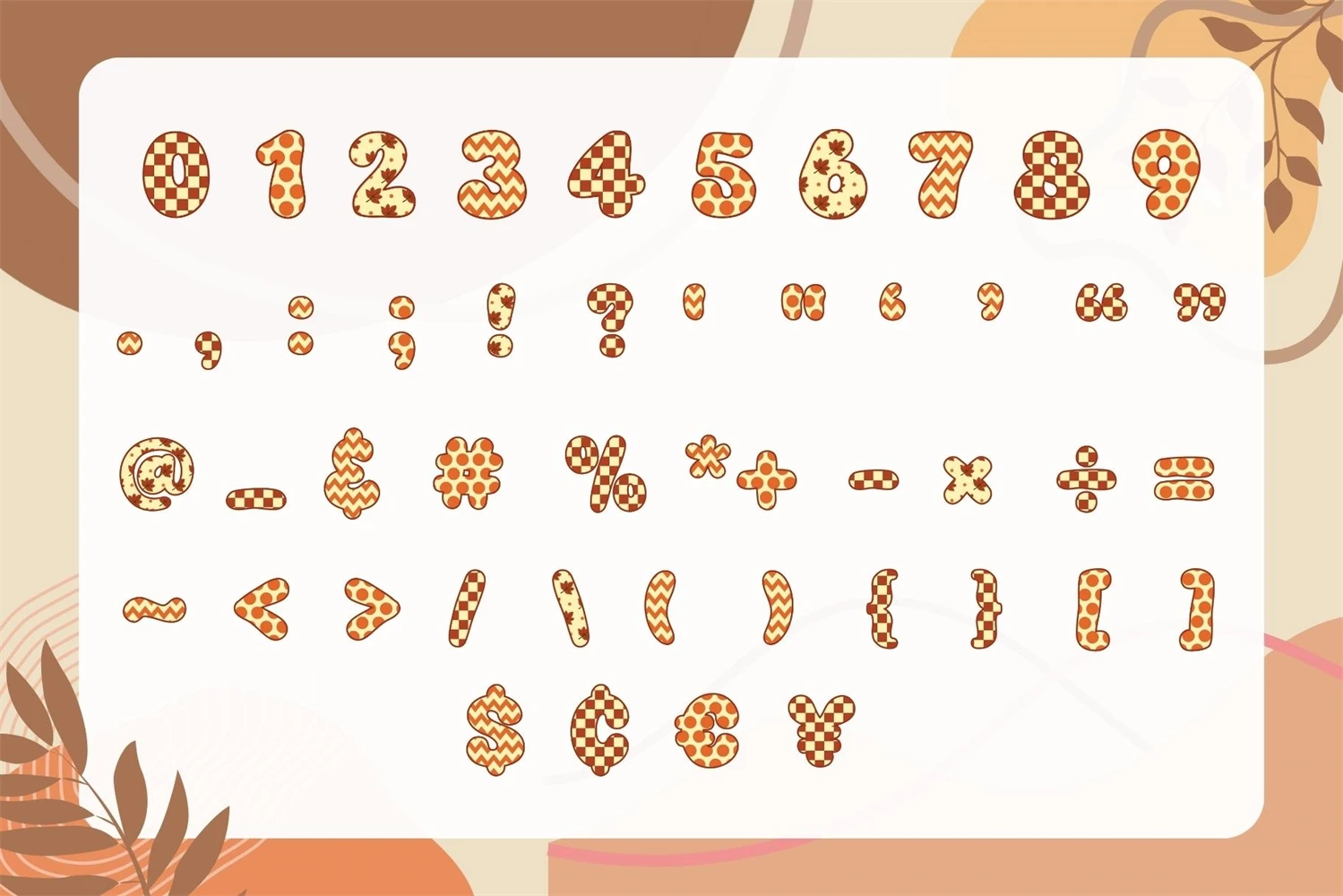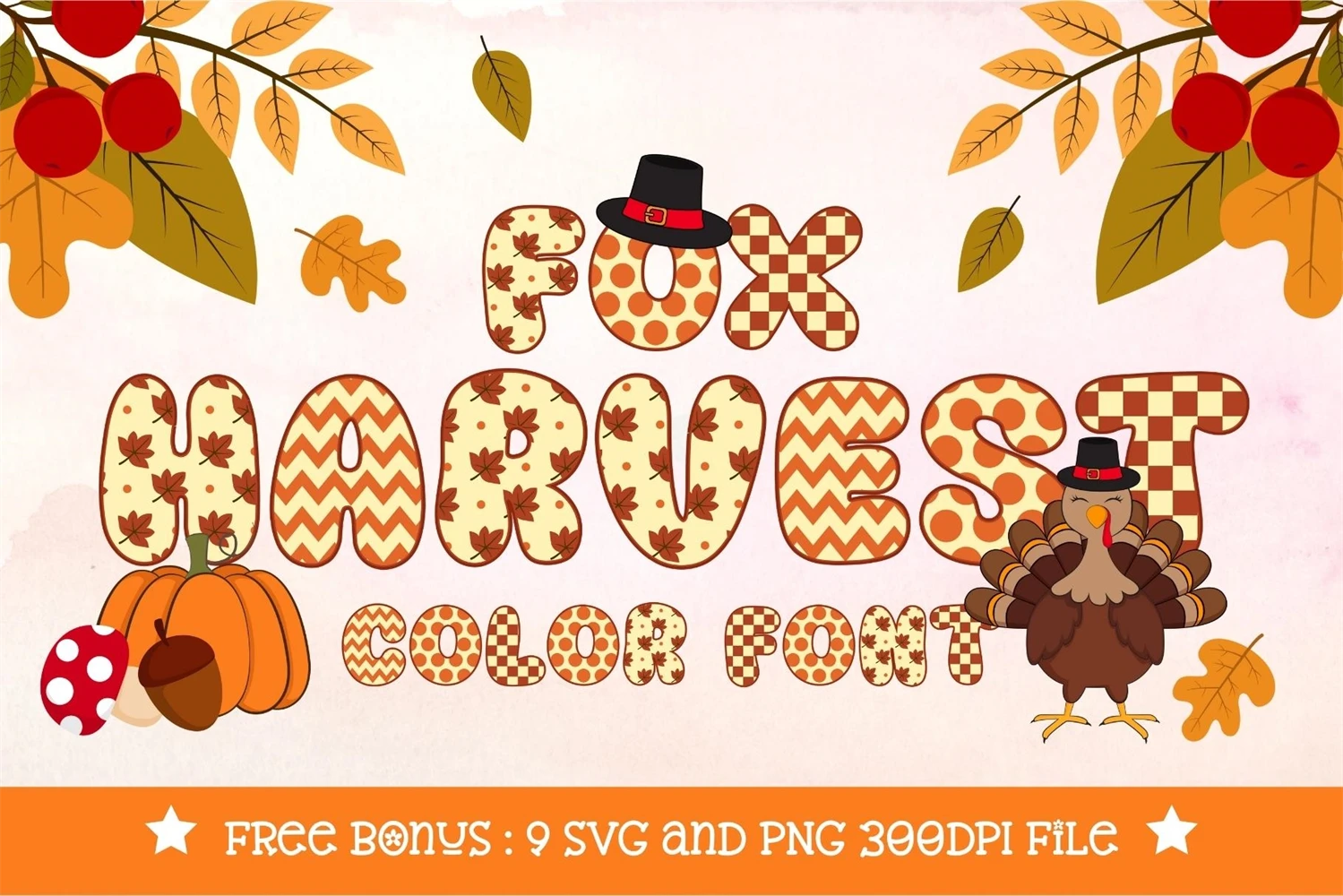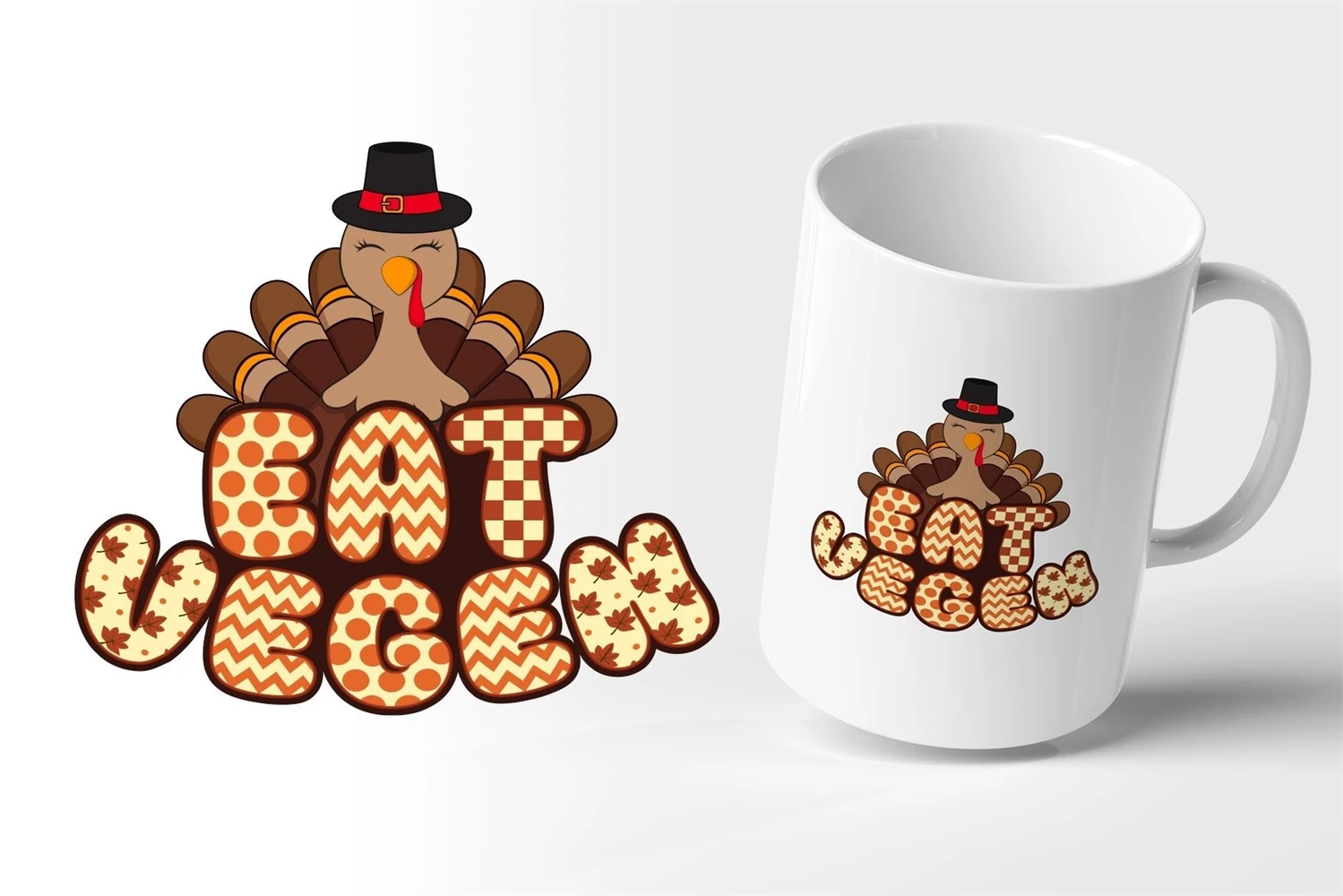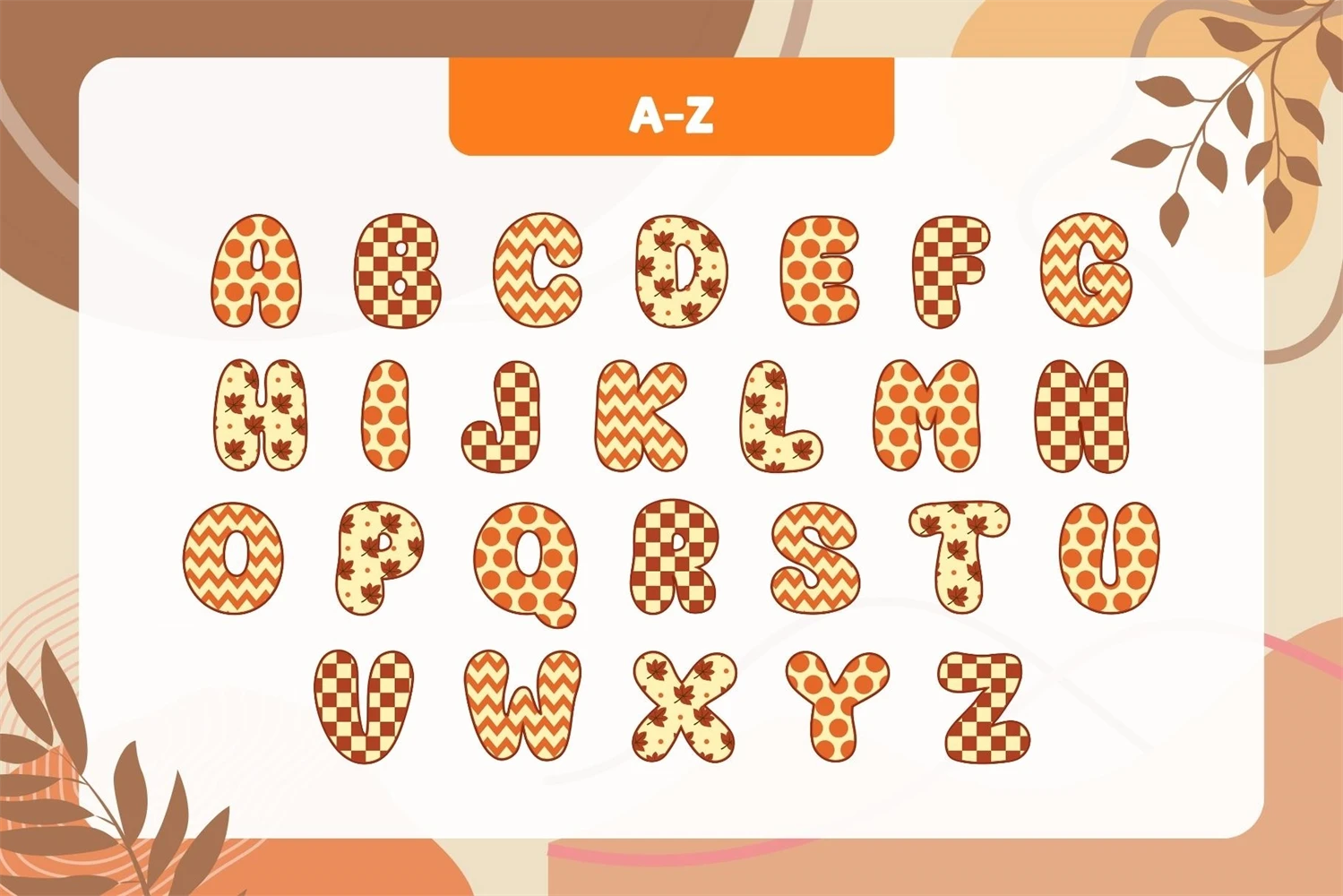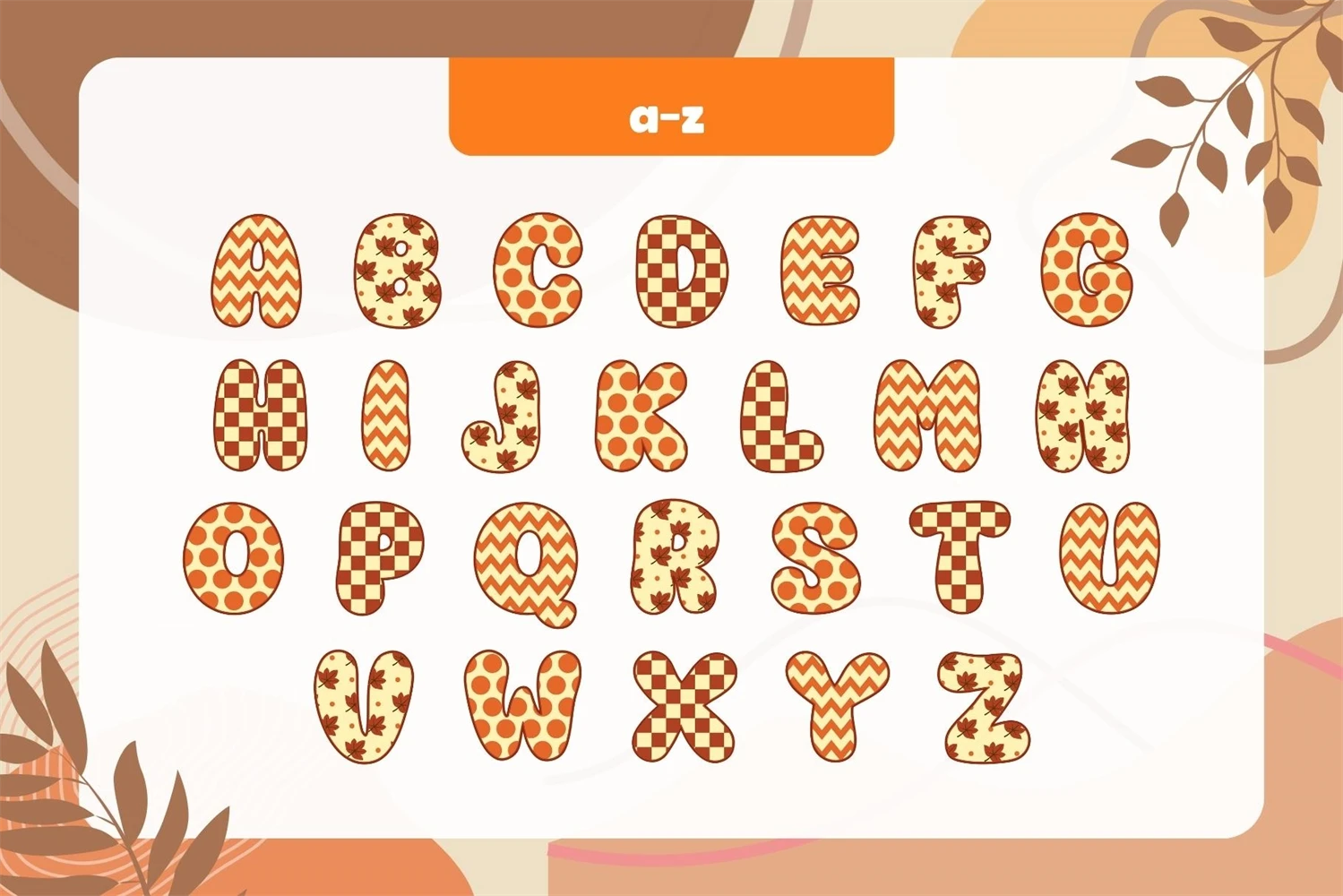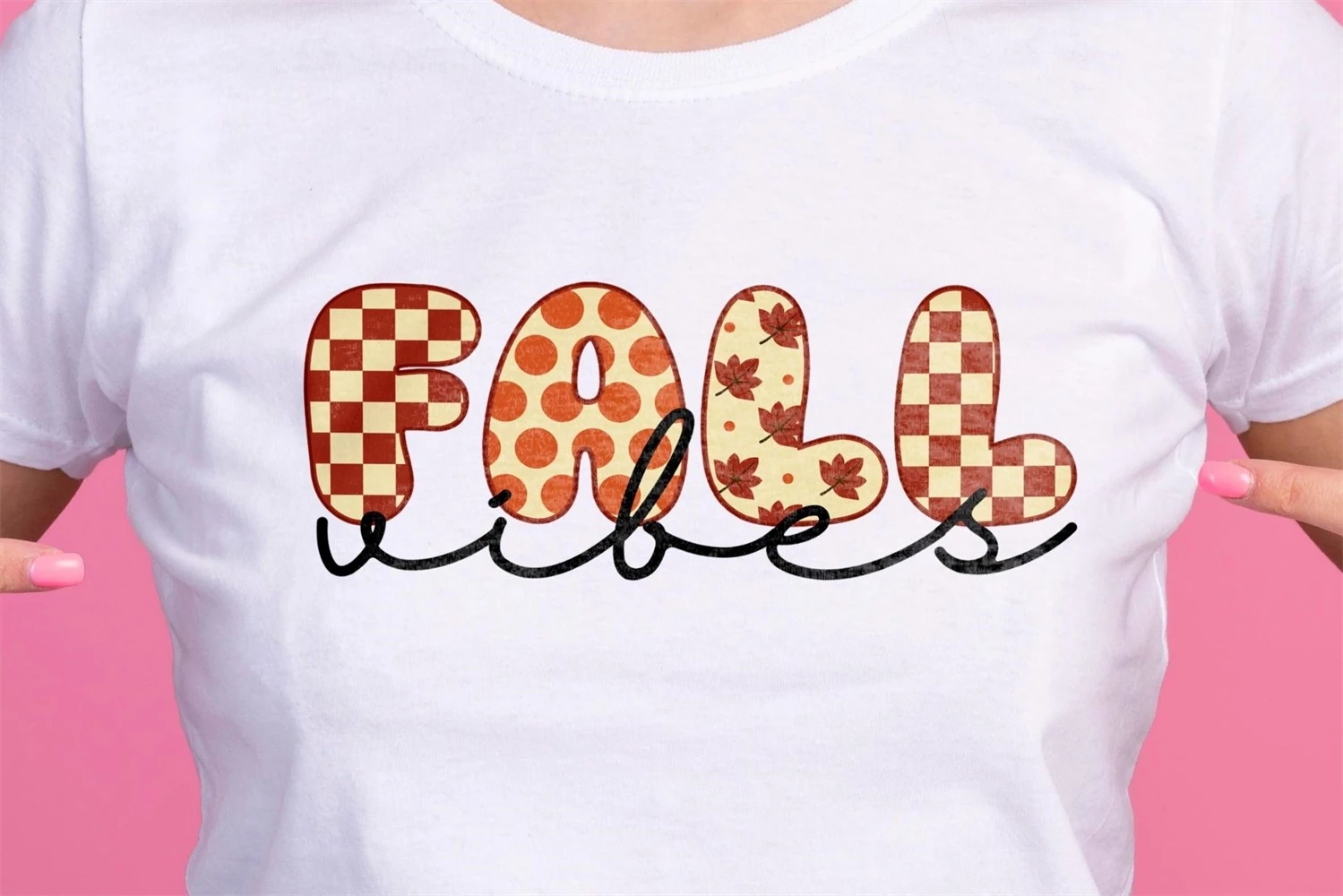
Fox Harvest is a decorative and color font. This font has a very festive and versatile feel, Whether youre working on a blog post, creating eye-catching designs for print-on-demand merchandise, designing cards, or any other project, Fox Harvest fonts add a touch of warmth and gratitude.